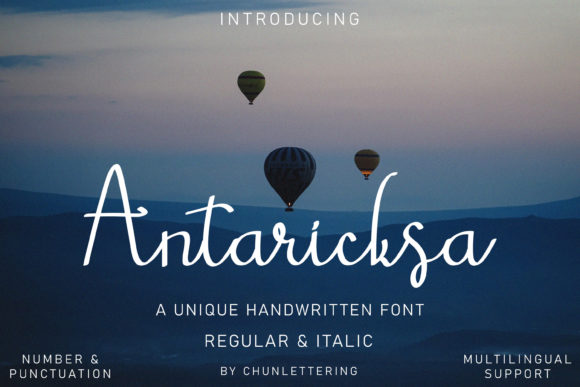
The Hunt for the Perfect Font: Discovering Antaricksa
I’ll never forget the time I was working on a branding project for a new coffee shop. My client wanted a font that was playful, yet sophisticated, and would reflect the warm and cozy atmosphere of their store. I spent hours scouring the internet for the perfect font, but nothing seemed quite right. That was until I stumbled upon Antaricksa, a beautiful handwritten font with unique glyphs that instantly caught my eye. ✨
A First Impression: What I Love About Antaricksa
Antaricksa is a true gem in the world of fonts. Here are just a few things that I love about it:
- ✅ Unique glyphs: Each character in Antaricksa has its own special charm, making it perfect for designs that need a bit of personality.
- ✅ Handwritten feel: The font has a warm, organic feel that’s perfect for creating a sense of connection with your audience.
- ✅ Versatile: Antaricksa is suitable for a wide range of design projects, from logos and branding to posters and websites.
The Honest Review: A Few Quirks to Consider
While Antaricksa is an amazing font, it’s not without its quirks. Here are a few things to keep in mind:
- ⚠️ Limited language support: Antaricksa is designed for English and other Western languages, so it may not work well with languages that require non-ASCII characters.
- 🤔 Some characters may require manual kerning: While the font is generally well-spaced, some character combinations may require a bit of manual adjustment to look their best.
The Story Behind Antaricksa: Designer Inspiration
Antaricksa was designed by a talented font designer who wanted to create a font that was both elegant and playful. Inspired by the beauty of handwritten script, Antaricksa is the result of hours of careful craftsmanship and attention to detail.
Here are a few frequently asked questions about Antaricksa:
- Q: What is Antaricksa?
- A: Antaricksa is a beautiful handwritten font with unique glyphs and a warm, organic feel.
- Q: What can I use Antaricksa for?
- A: Antaricksa is suitable for a wide range of design projects, including logos, branding, posters, websites, and more.
- Q: Is Antaricksa easy to read?
- A: Yes, Antaricksa is designed to be easy to read, even at small sizes.